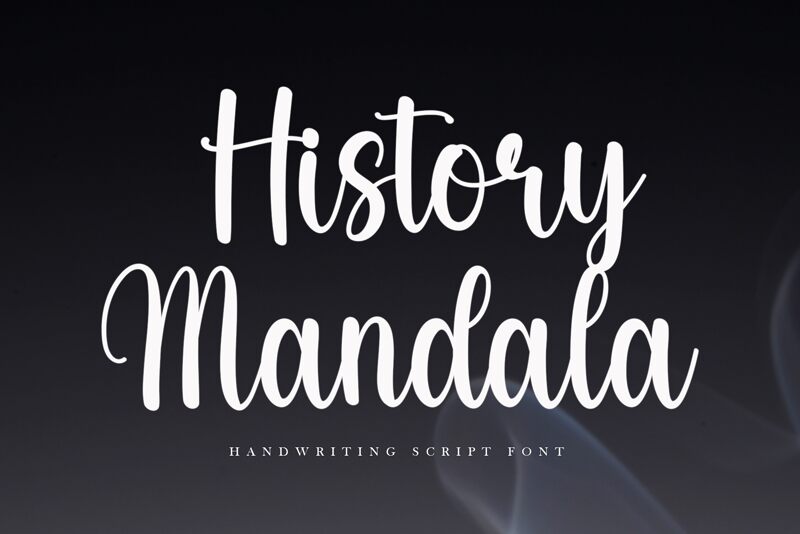
History Mandala font by creatype designer is an elegant handwritten font suitable for a wide array of projects. Its exquisite flow is achieved with fine lines and fluid joints, creating an artistic and modern aesthetic. Each of its characters is first sketched by hand before being digitalized which results in a natural feel and an inviting tone. This font will add a personal touch to your projects, making readers feel included and considered.
Businesses like cafes and restaurants can take advantage of History Mandala, as can artists and creative magazines. Use it for logos, invitations, posters, and branding designs. It can also be showcased in product packages and labels or in online blogs and social media platforms. History Mandala’s letters are both gentle and friendly, so they can easily be added to women’s clothing tags and accessories that finally look the part.
This font retains a classy calligraphic influence while feeling contemporary and fresh. Its versatility will inspire a wide range of creative projects, from letterheads and titles to stationery.